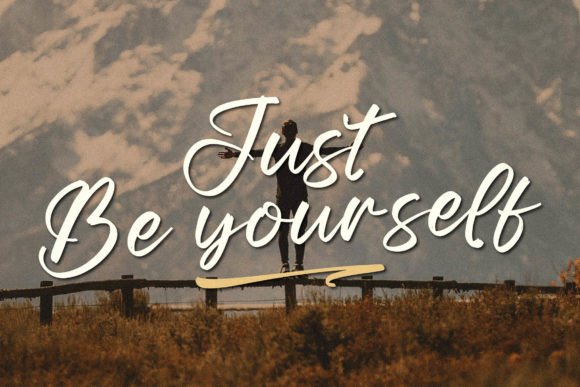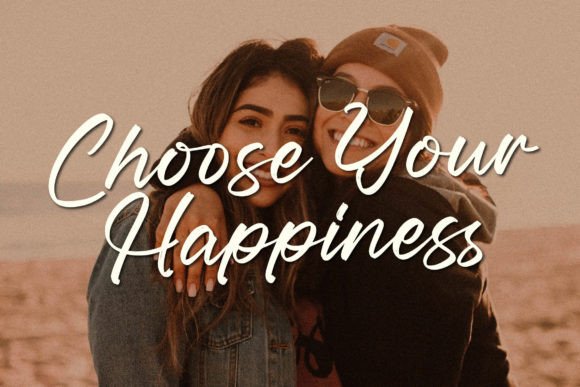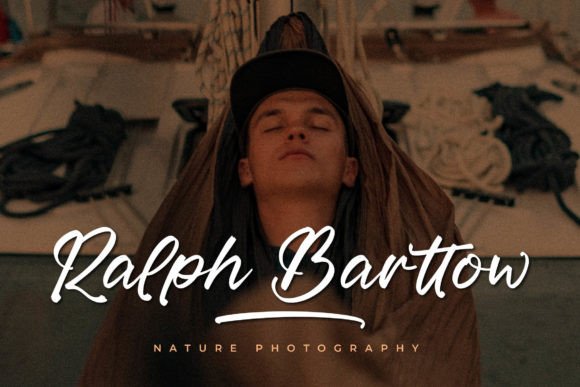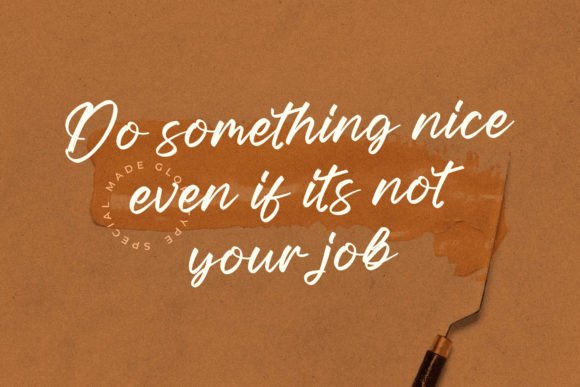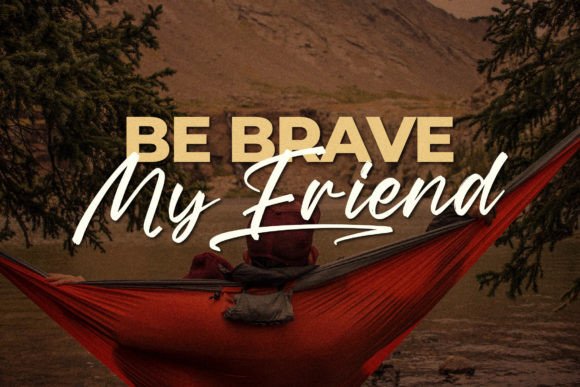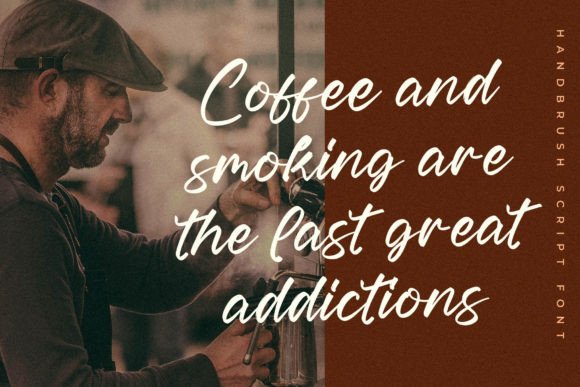
Introduction to Robsttar Strick Font
Have you ever been stuck on a creative project, staring at a blank canvas, waiting for the perfect design element to spark your imagination? That’s exactly what happened to me when I first discovered the Robsttar Strick Font. Its modern, handwritten brush style instantly caught my attention and set my creative juices flowing.
As a designer, I know how valuable a high-quality, versatile font can be in elevating a design project. And that’s exactly what the Robsttar Strick Font delivers. With its transparent background and free download availability, it’s a go-to design resource for any creative project. Whether you’re working on a fashion blog, a social media campaign, or a branding project, this font is sure to add a touch of sophistication and style.
But what truly sets the Robsttar Strick Font apart is its ability to seamlessly integrate with any design style, making it a must-have in every designer’s toolkit.
Key Features of Robsttar Strick Font
- High-quality design resource ideal for creative projects, available for free download
- Unique, modern font style with a transparent background, perfect for minimalist designs
Honest Review: Robsttar Strick Font
I recently had the chance to try out the Robsttar Strick Font for my latest creative project, and I must say, I was pleasantly surprised by its quality.
- ✨ The font has a unique, bold design that makes it perfect for headings and titles.
- ✨ The font has a transparent background, which allows for seamless integration with other design elements.
- ⚠️ The font is not as versatile as some other options, and it may not be suitable for smaller text sizes.
- ⚠️ The font family is limited to a few styles, which may not be enough for designers who need a wide range of options.
Overall, I’m impressed with the Robsttar Strick Font. While it has its limitations, its high quality and unique design make it a valuable resource for designers working on creative projects. I’d definitely recommend it for designers looking for a bold, eye-catching font.
How to Use Robsttar Strick Font
The Robsttar Strick Font is a high-quality, free download that can elevate any creative project. With its unique design and transparent background, this font is perfect for adding a touch of sophistication to your designs.
Getting the Most Out of Robsttar Strick Font
To get the most out of the Robsttar Strick Font, try the following:
- Experiment with different font sizes and colors to achieve the desired effect.